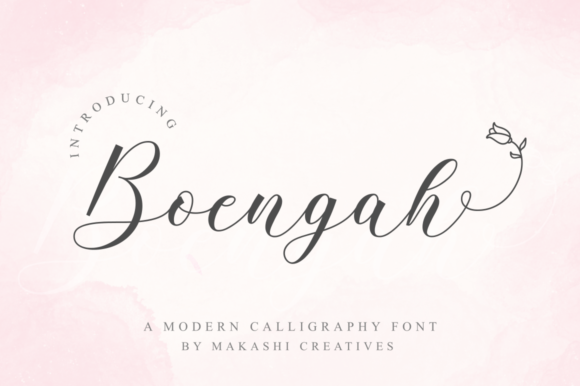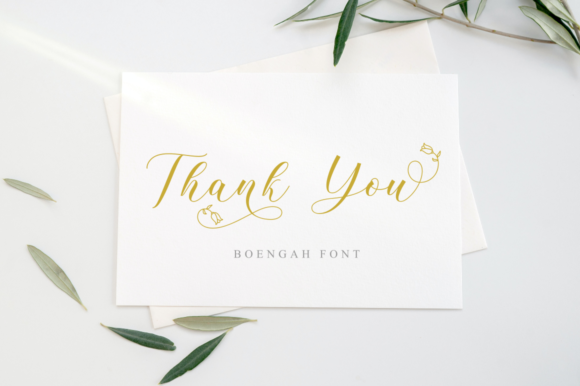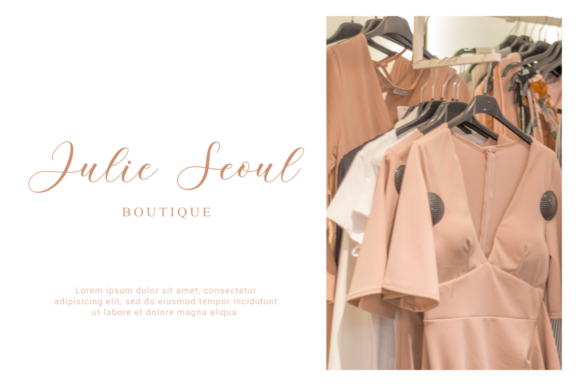
Boengah is an elegant and flowing handwritten font. It is PUA encoded which means you can access all of the glyphs and swashes with ease! It looks beautiful on a variety of designs requiring a personalized style, such as wedding invitations, thank you cards, weddings, greeting cards, logos and so on.